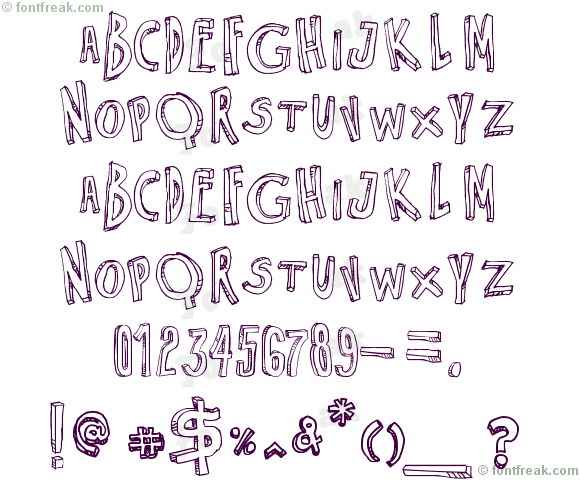
Education is a Way
About Education is a Way
The "Education is a Way" font, created by Galdino Otten Fonts in 2010, is a unique display typeface that embodies a playful and educational spirit. This font features a hand-drawn aesthetic, characterized by irregular stroke weights and a lighthearted, whimsical style. The letters appear slightly uneven, enhancing the font's approachable and informal vibe. The spacing between characters is generous, promoting readability while maintaining a fun visual impact. The decorative elements, such as the varied line thickness and playful letterforms, contribute to its charm, making it ideal for projects aimed at a younger audience or those with an educational focus.
This font is particularly well-suited for a variety of creative applications. It shines in environments such as educational materials, children's book covers, and classroom posters, where a friendly and engaging look can capture attention. Additionally, it works wonderfully for social media graphics targeting educators or students, as well as advertising campaigns for tutoring services. The font can also enhance event invitations for workshops or educational fairs, providing a distinctive touch that resonates with its theme.
The target audience for the "Education is a Way" font includes graphic designers looking for a quirky typeface to bring their projects to life, small business owners in the education sector, and content creators who aim to engage viewers with a fun and inviting style.
What sets the "Education is a Way" font apart is its ability to infuse a sense of creativity and warmth into any project. The unique hand-drawn quality makes it a memorable choice for anyone seeking to communicate themes of learning and growth. For those interested, the Education is a Way font free download is an excellent opportunity to incorporate this delightful typeface into your work.